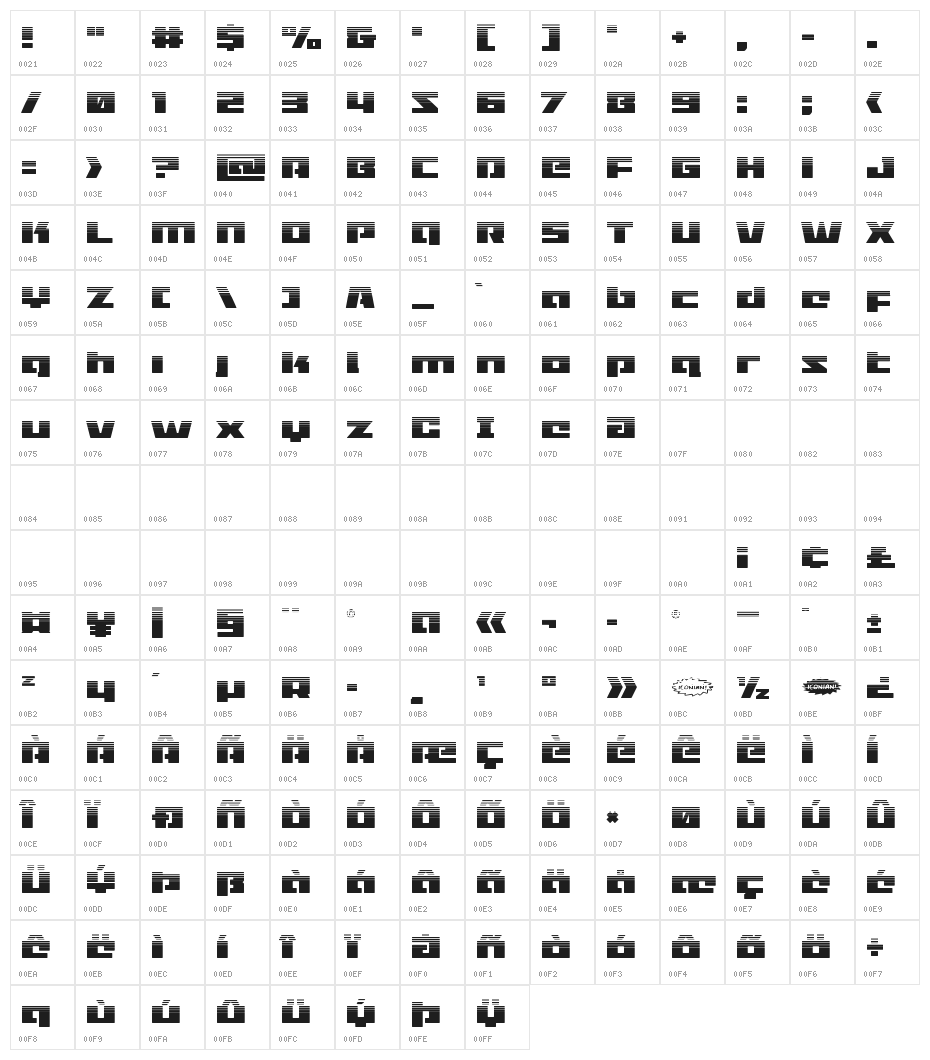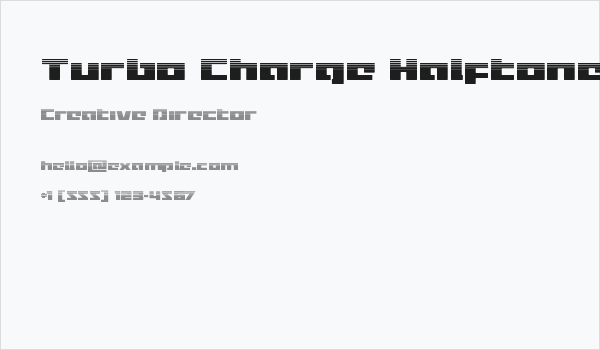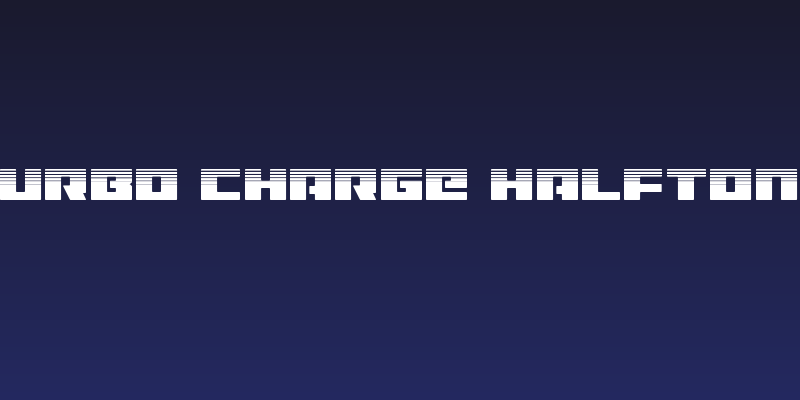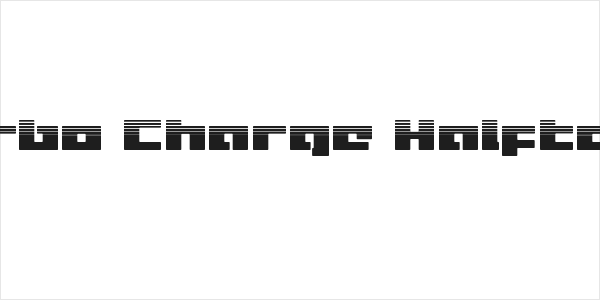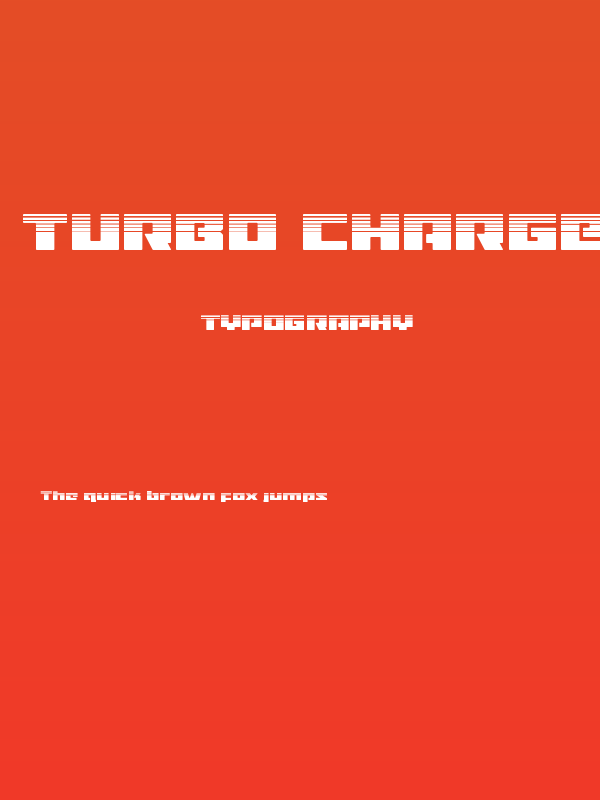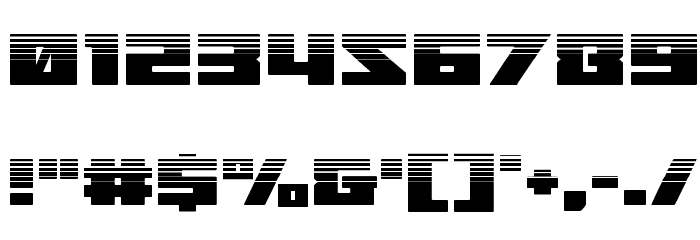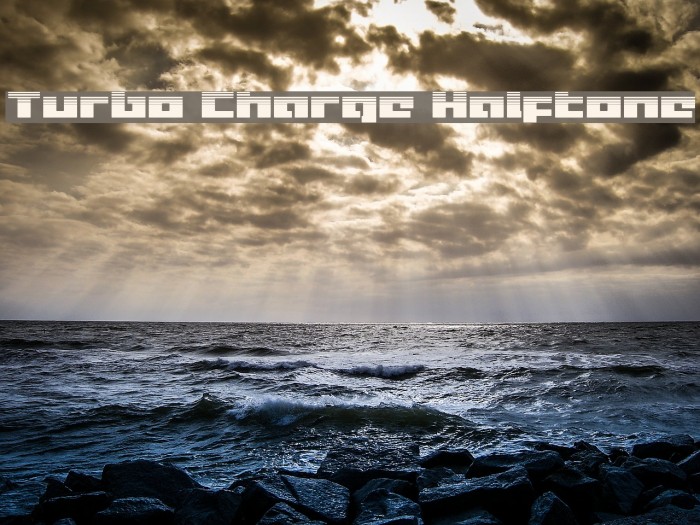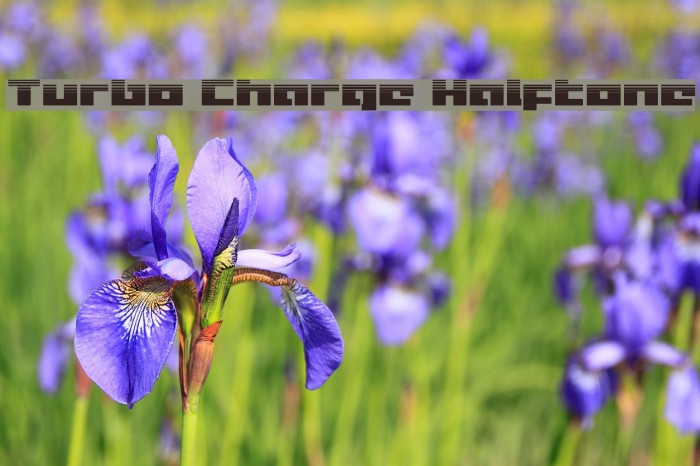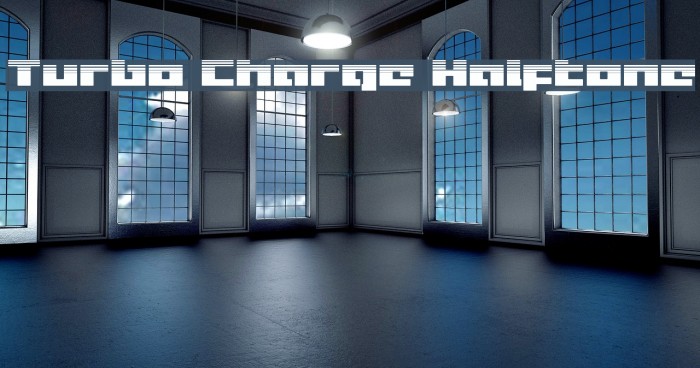
Turbo Charge Halftone Font
Turbo Charge Halftone Description
This font features a bold, futuristic design with a distinct halftone effect that gives it a dynamic and energetic appearance. The characters are constructed with horizontal lines that create a sense of movement and speed, making it ideal for projects that require a modern and edgy look. The uppercase and lowercase letters maintain a consistent style, with sharp angles and geometric shapes that enhance its contemporary feel. The numerals and special characters are equally bold and striking, ensuring a cohesive appearance across all text elements.
| Proposed Projects | Ideal for technology branding, video game titles, sci-fi posters, and sports event promotions. |